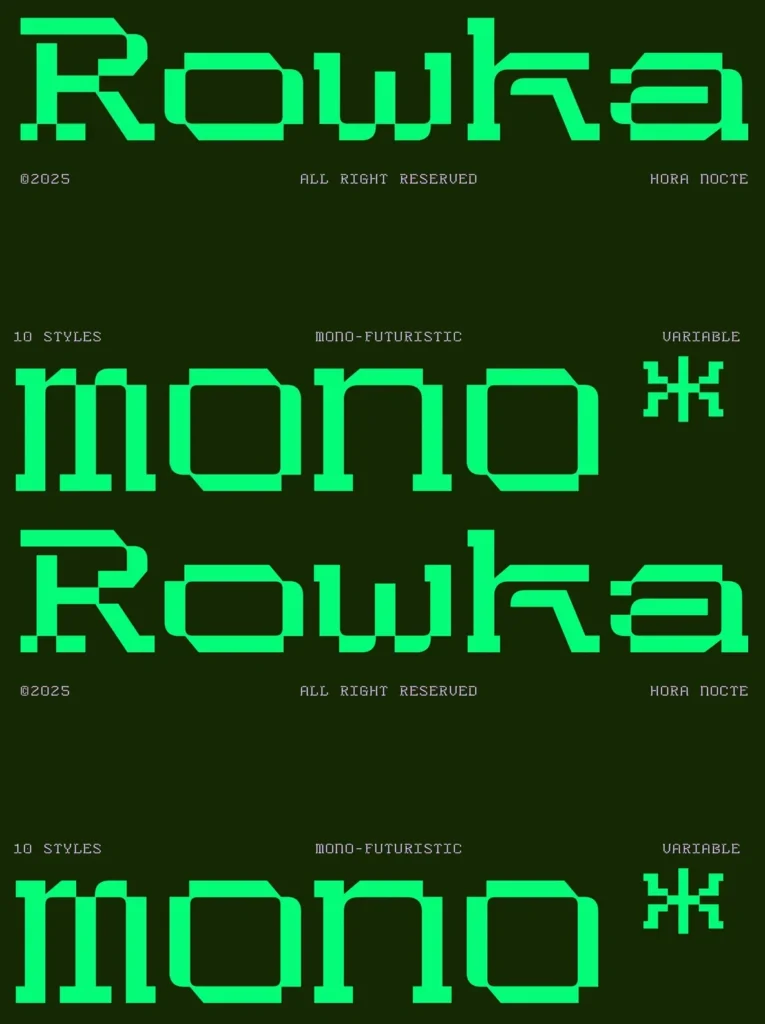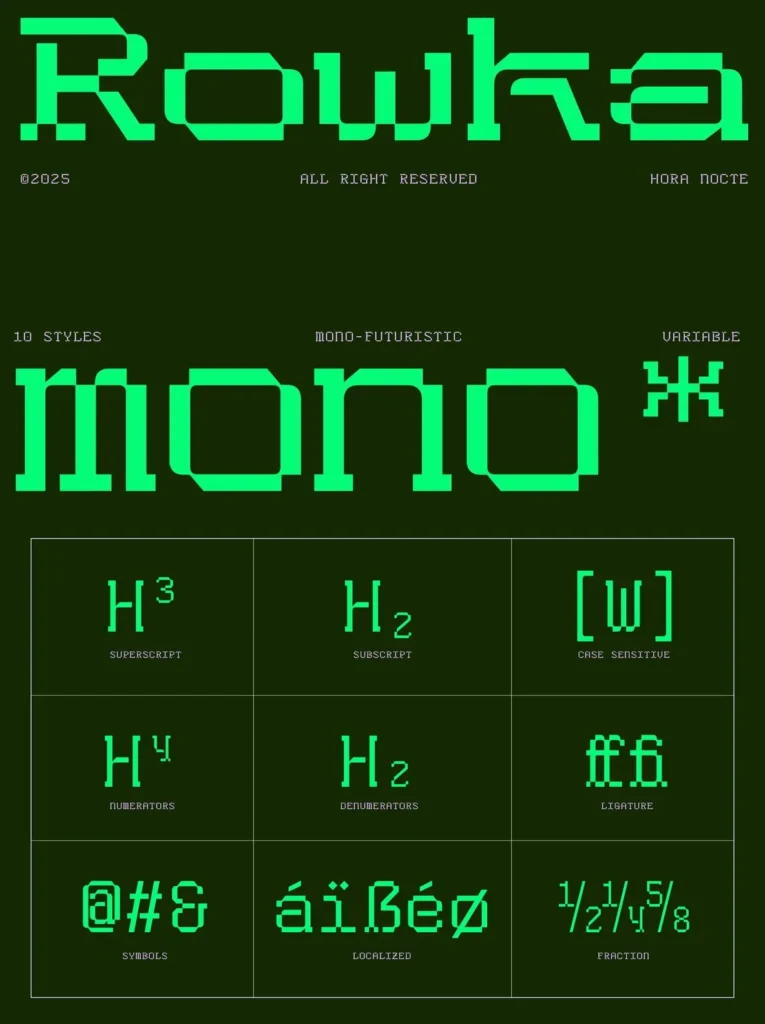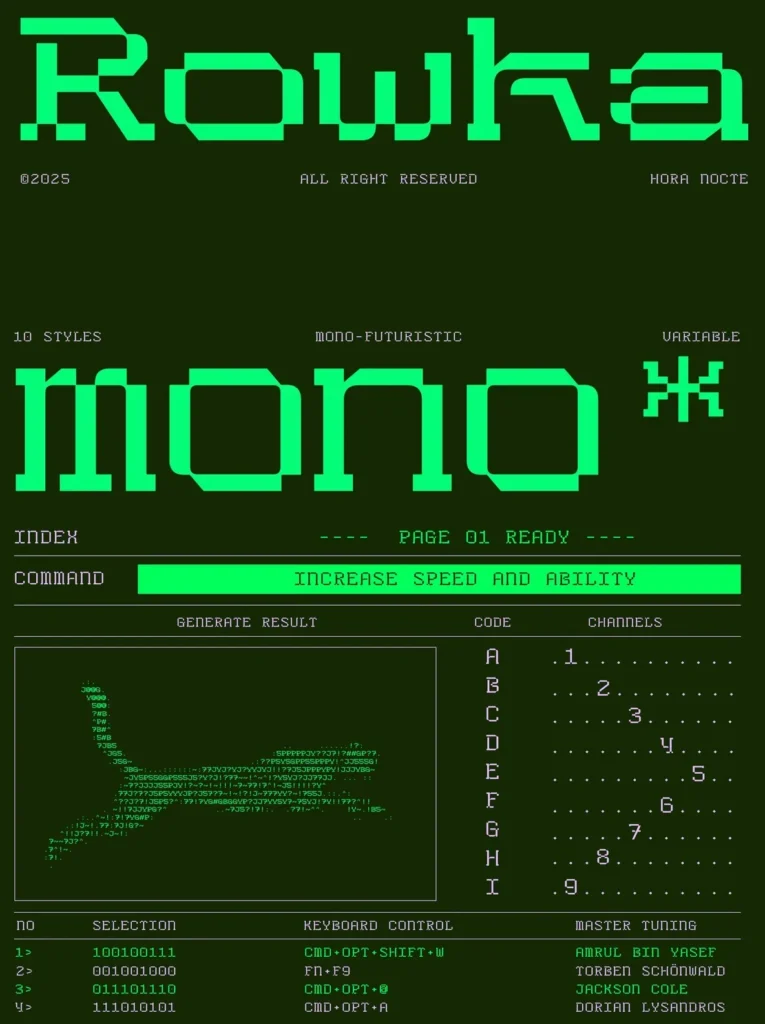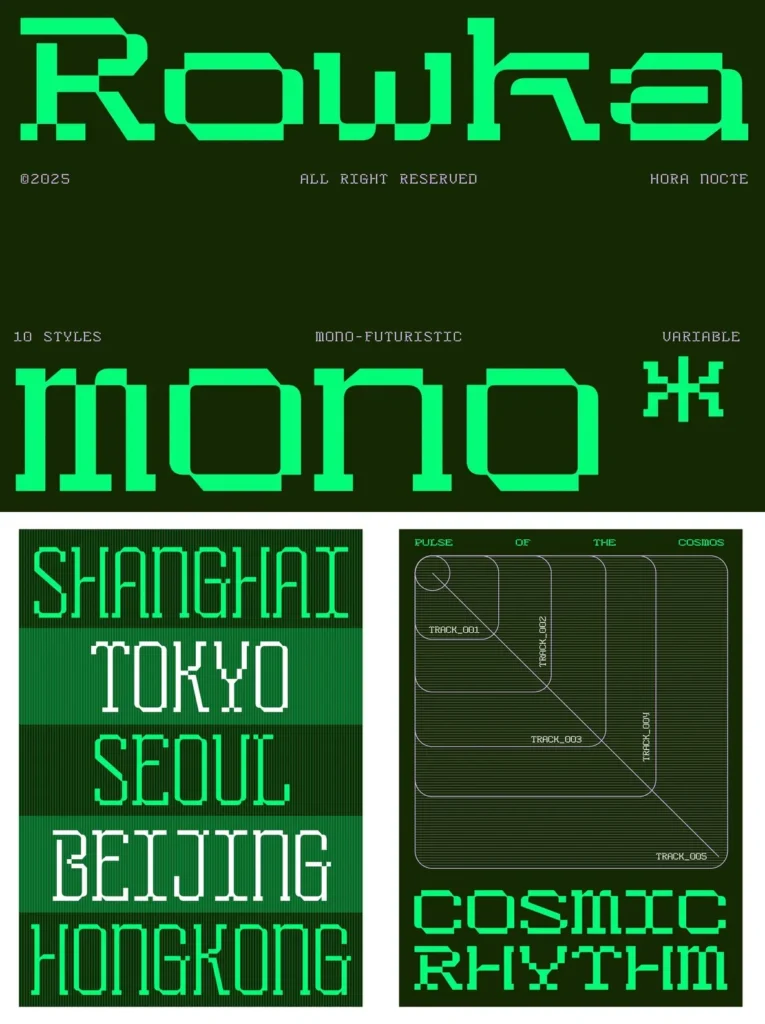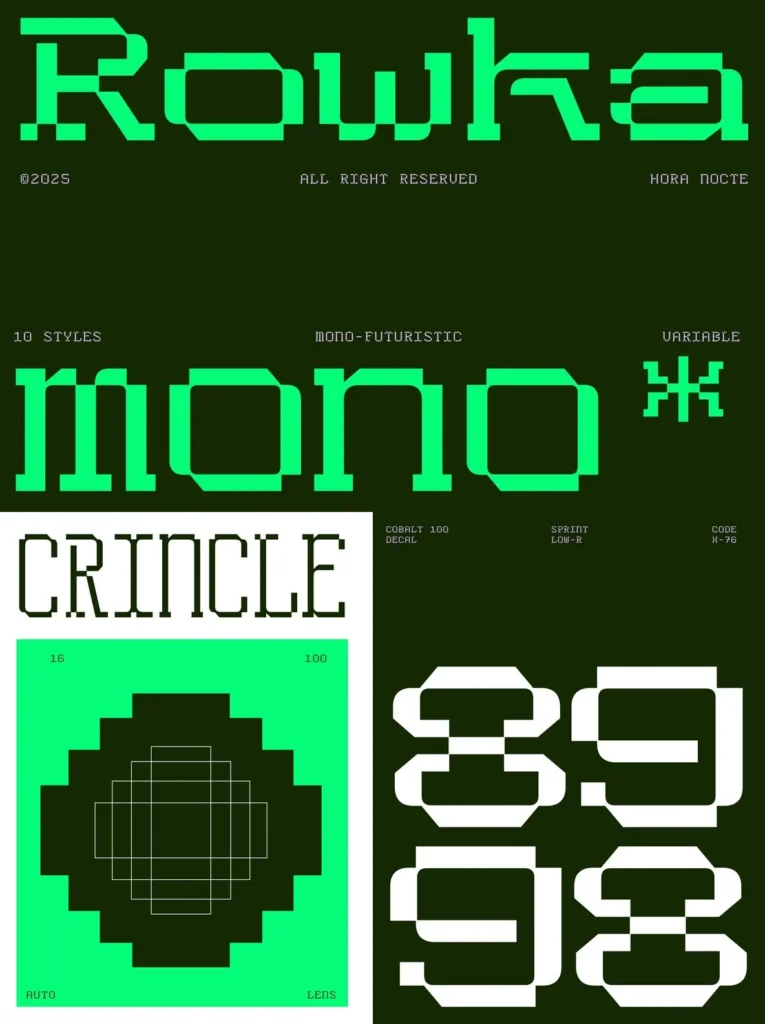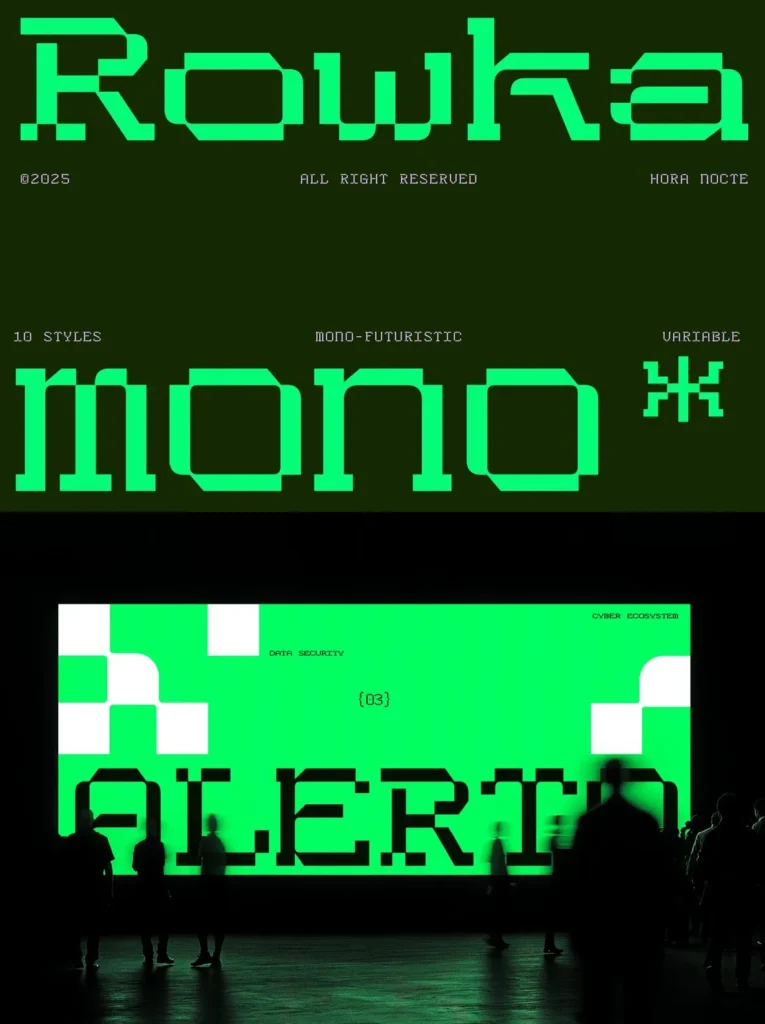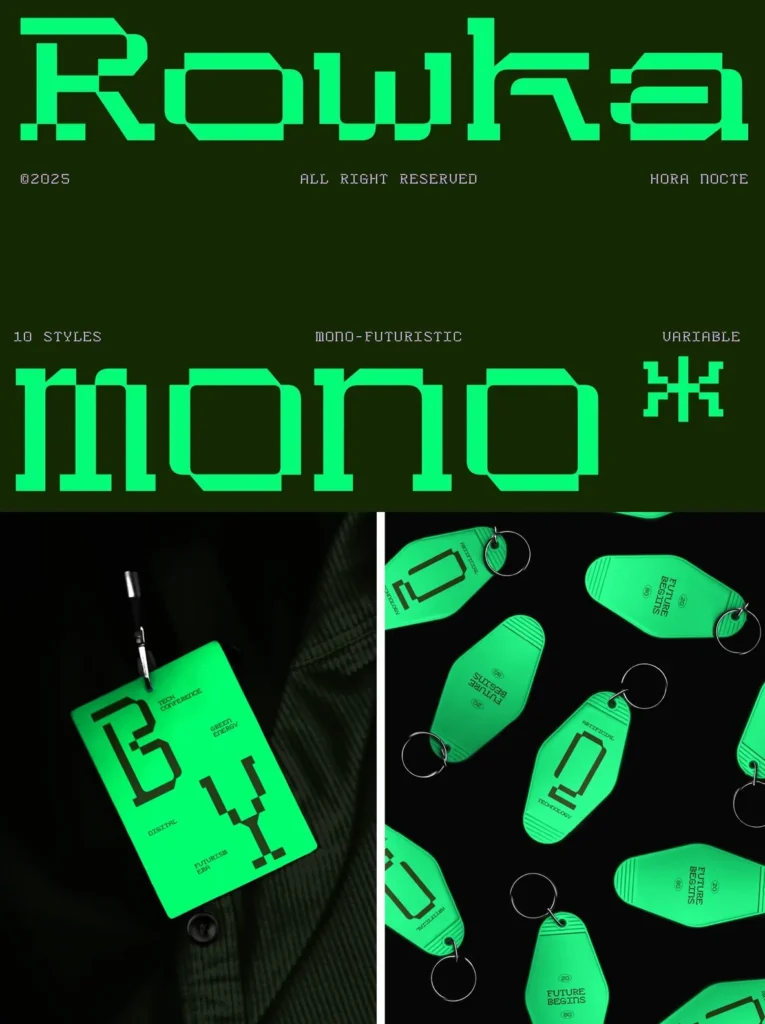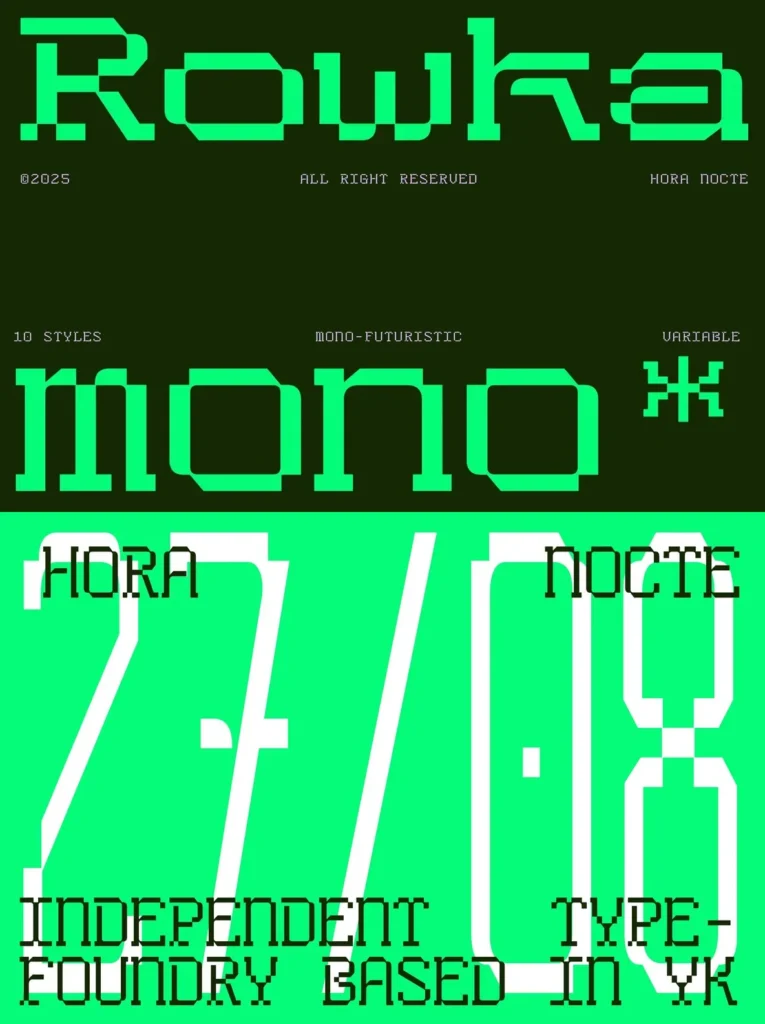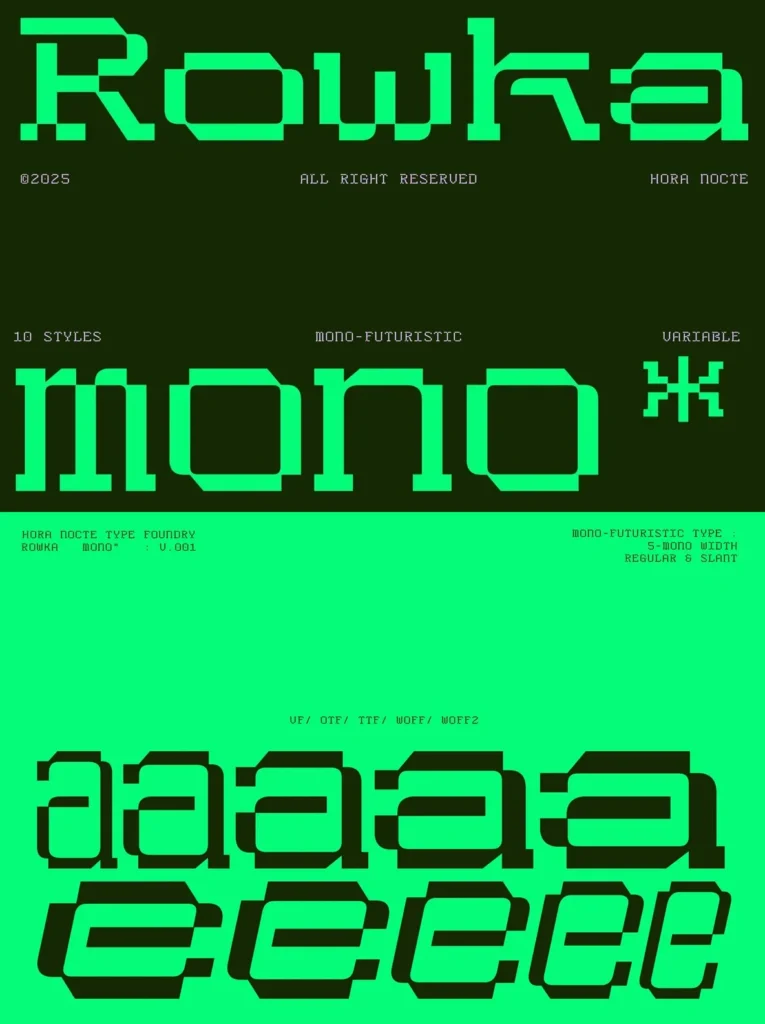
HN Rowka Mono — Modular Type for Technical Systems
HN Rowka Mono stands out among monospaced fonts with modular geometry, sharp chamfered edges, and a structured grid system. Designed by hora nocte, this variable typeface offers five distinct mono width styles, available in both regular and slant variations. Rooted in early-digital design principles, it brings an industrial sensibility to projects that need a technical, forward-facing tone.
Use it across interface design, branding, and editorial work where clarity and structural integrity matter. Its angular forms and consistent spacing support cohesive results in both digital and print environments. HN Rowka Mono also performs well in high-impact motion graphics, experimental layouts, and gaming contexts, with enough versatility in weight and posture for both text and display use.
Features
Five mono width options for wide typographic control
Regular and slant (italic) styles for added flexibility
Rigid modular geometry for a cyber-mechanical effect
Grid-based composition supporting technical layouts
Consistent monospacing—ideal for coding, branding, and editorial design